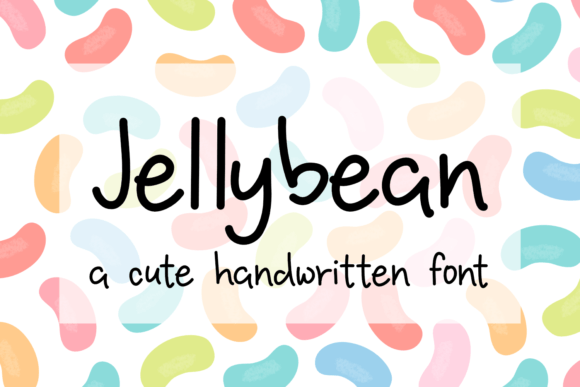
Introducing Jellybean Font, a striking and energetic handwritten font that will bring a fresh breeze of creativity to your designs. Let your words dance with an irresistible charm as they flow through this font's carefully crafted curves. Experience the fusion of playfulness and elegance that adds a touch of whimsy to your projects.
Jellybean Font belongs to the enchanting script font family, renowned for its ability to evoke a sense of authenticity and warmth. With its distinct style, this font shines as the Best Font For Handwritten Q. Created by the talented designavmad, Jellybean Font is a masterpiece that captures the essence of genuine penmanship.
Visualize your headlines and logotype projects adorned with the captivating charm of Jellybean Font. Its bold and confident strokes command attention, exuding a sense of dynamism that will make your designs stand out. Unleash your creativity and let this font add a dash of nostalgia and timeless character to your work.
Dive into the versatility of Jellybean Font, effortlessly adapting to a wide range of design concepts. Whether you're crafting logos, brochures, invitations, or social media posts, this font seamlessly complements your artistic vision. Its playful yet elegant nature makes it an ideal choice for projects seeking a touch of individuality.
Immerse yourself in the intricate details of Jellybean Font, where each letterform is meticulously designed to reflect the beauty of handwritten art. The smooth transitions and dynamic flourishes create a visual symphony, captivating your audience with their charm. Experience the joy of using a font that truly captures the essence of human creativity.